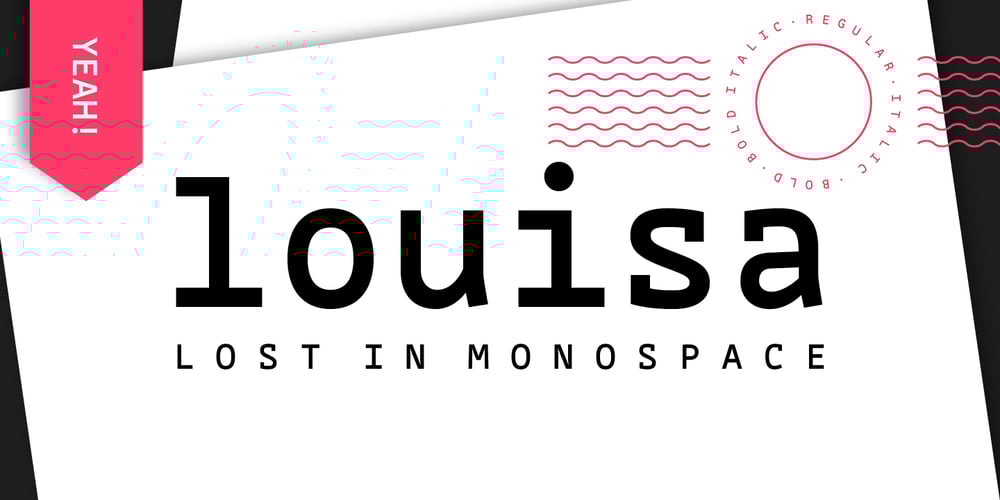
Louisa Font Family was designed by Julia Hanft and published by Julia Hanft. Louisa contains 4 styles and family package options. Louisa is a monospaced font-family designed and optimized specifically for small font sizes. But even as headline font it looks good. It has a very good distinguishability of letter forms and legibility even in longer text paragraphs. The character of Louisa is a combination of strong elements and warm, friendly forms. The font family is not only designed for coding and tabular layout, but can be used in different fields of communication design. Therefore it provides two stylistic sets with different letter forms: one with the look of serious modern typewriter font, the second with more soft letter forms and elements of a real italic. Additionally it consists oldstyle numbers (and of course tabular numbers) and a set arrows. The font is available in four styles: regular, italic, bold and bold italic.